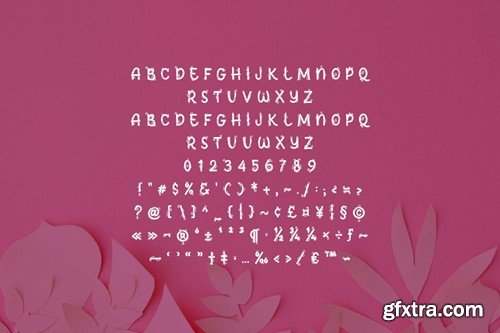
Introducing Fanwosh – a delightful and versatile display font perfect for adding a touch of playfulness to any project. Crafted with care and creativity, this font brings a sense of fun and whimsy to your designs. With its unique and quirky letterforms, Fanwosh is ideal for a variety of applications, from greeting cards and invitations to posters and signage. Each character is adorned with charming decorative elements, adding visual interest and personality to your text. Whether you're designing for a children's book, a party invitation, or a branding project, Fanwosh offers endless possibilities. Its playful vibe and stylish flair will captivate audiences of all ages, making it a must-have addition to your font collection. Download Fanwosh today and let your creativity soar with this fun and decorative display font! The zip file is include: Thank You!